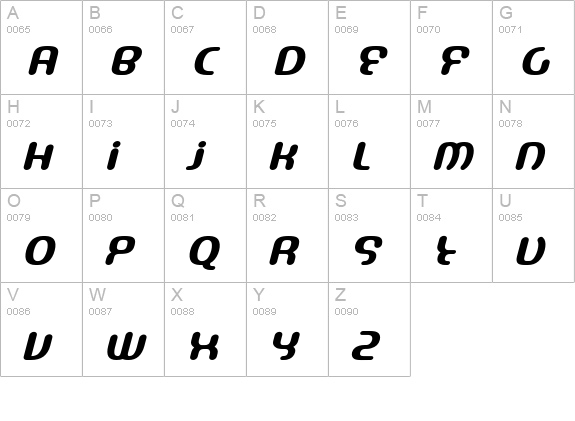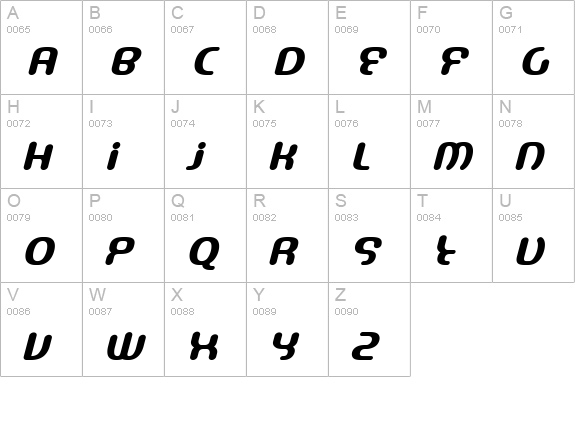
Escape-Regular is the standard, neutral variant in the Escape typeface family \xE2\x80\x94 well suited to general body text, paragraphs, and standard typographic work.
Escape-Regular is a versatile and modern font that exudes a sense of freedom and creativity. Its clean lines and contemporary design make it perfect for a wide range of projects, from branding to editorial design. The sleek and easy-to-read letterforms of Escape-Regular add a touch of sophistication to any text, while still maintaining a sense of approachability. Whether you're designing a sleek website, creating eye-catching social media graphics, or crafting a stylish logo, Escape-Regular is sure to make your text pop. Best of all, this fantastic font is available for free download at FontsMarket.com. So why wait? Elevate your design projects with Escape-Regular today and let your creativity soar!